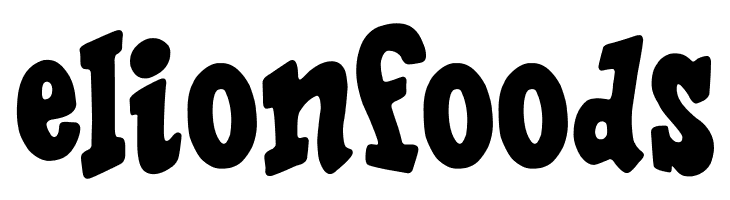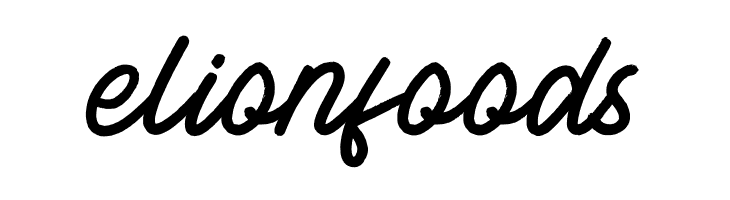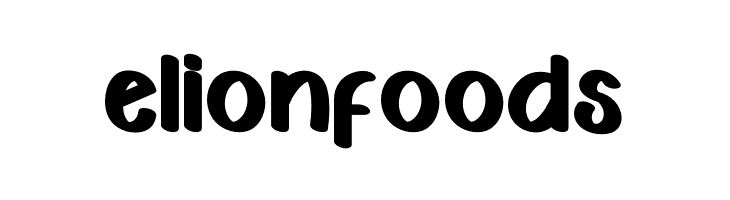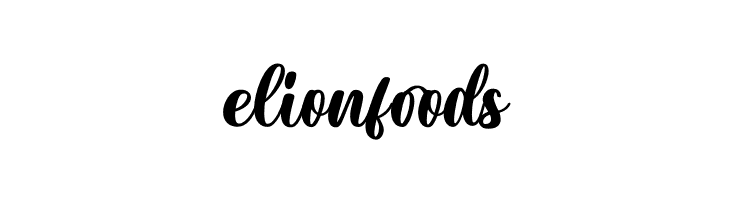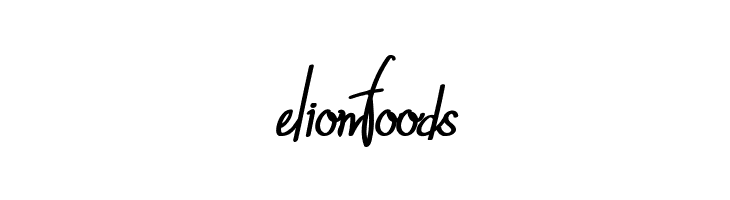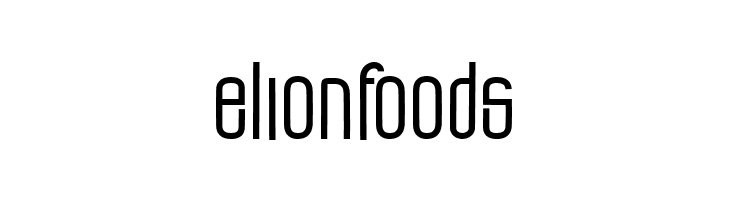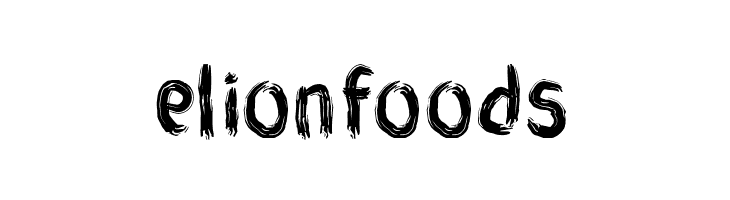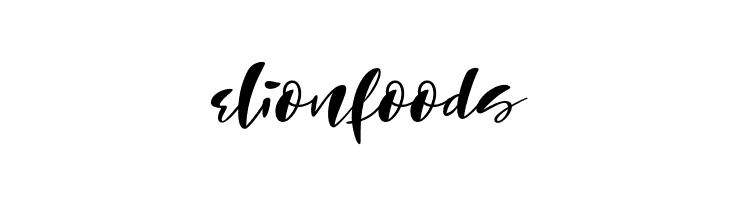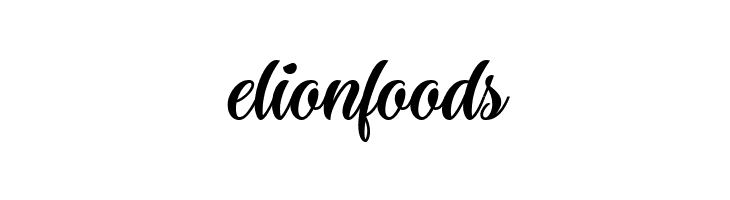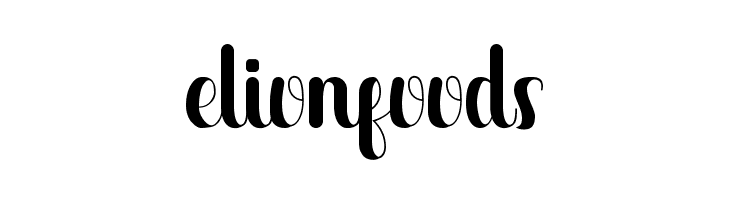
• The Horizontal
A bold, handwritten font with fluid, connected strokes and a casual, energetic style.
• The Horsetto
A dynamic, handwritten-style font with bold, expressive strokes and a lively slant.
• The Human
A lively, handwritten font with expressive, cursive strokes.
• The Human Italic
A dynamic, cursive script font with fluid, expressive strokes.
• The Immortal 1
A bold, textured script font with a vintage yet modern appeal.
• The Immortal 2
A bold, dynamic script font with dramatic flourishes and high contrast.
• The Julayna
An elegant script font with flowing, interconnected characters and decorative swashes.
• The King
A bold decorative font with diverse crown and royal iconography.
• The Kings of the House
A playful, bold, and hand-drawn font with rounded edges and high contrast.
• The Knight
• The Last Comic On Earth
A bold, playful font with a cartoonish, comic book style.
• The Laughing Wolf. Regular
A bold, expressive script font with a playful handwritten style.
• The Lazoo DEMO
Bold, playful handwritten font with brush-like strokes.
• The Ledbetter
A bold, flowing script font with elegant curves and high legibility.
• The Limited
A bold, handwritten font with expressive, dynamic strokes.
• the Lost Souls